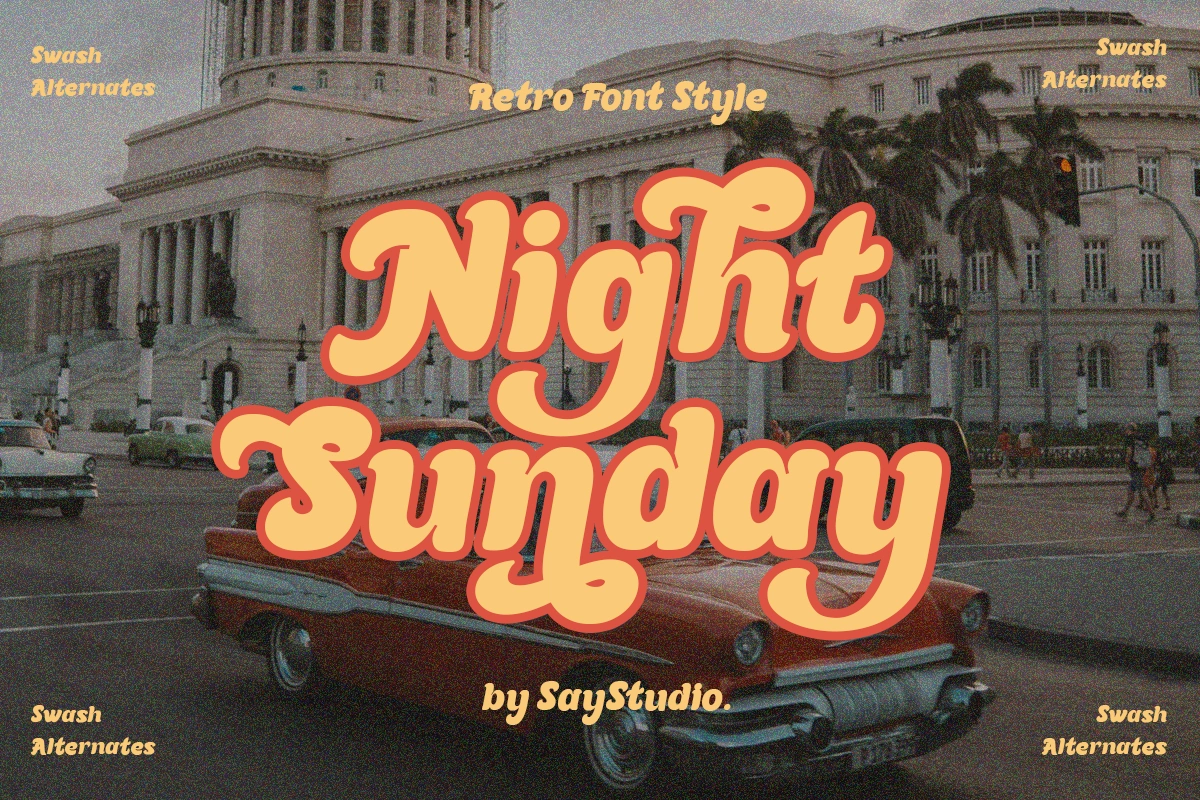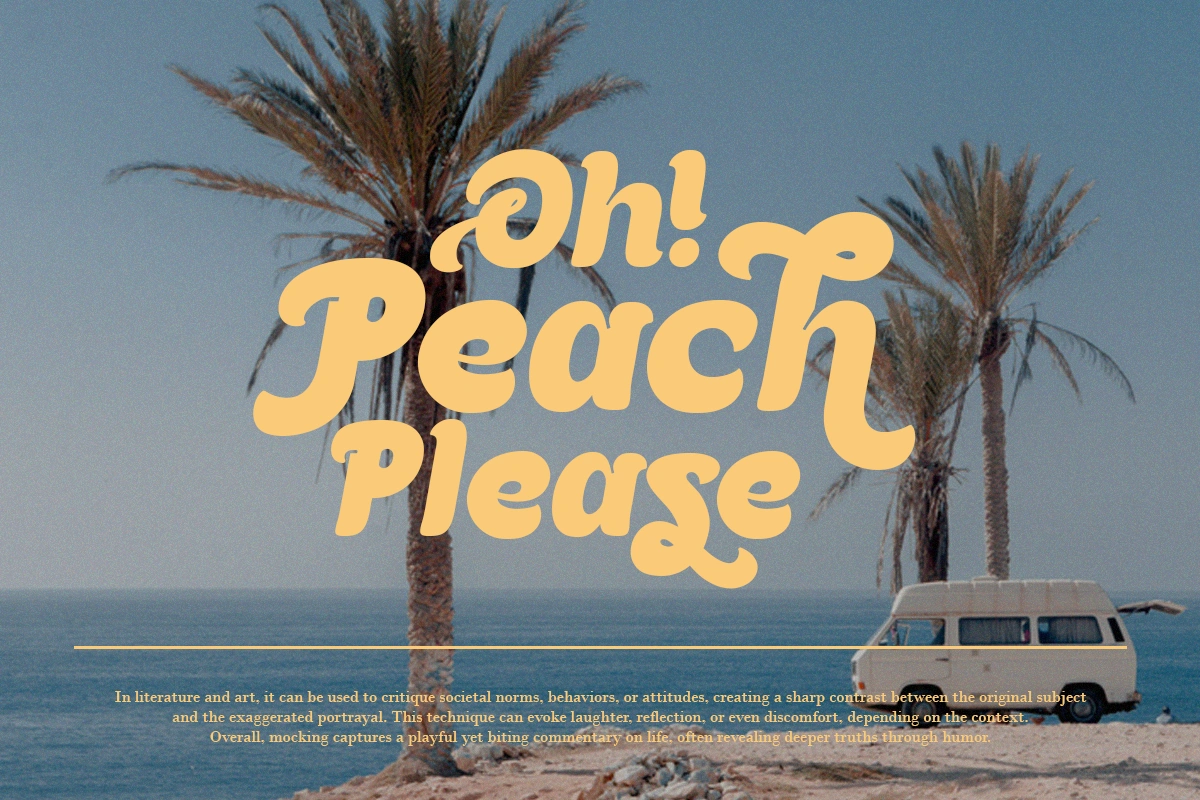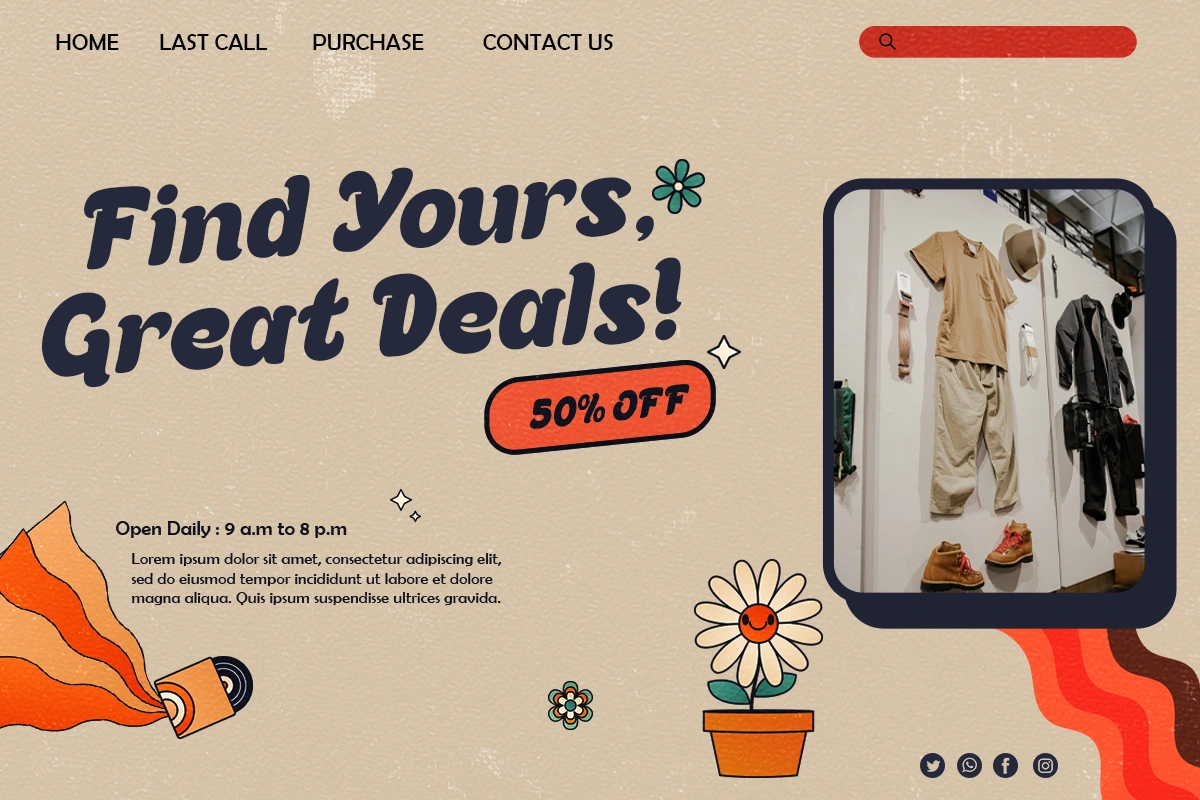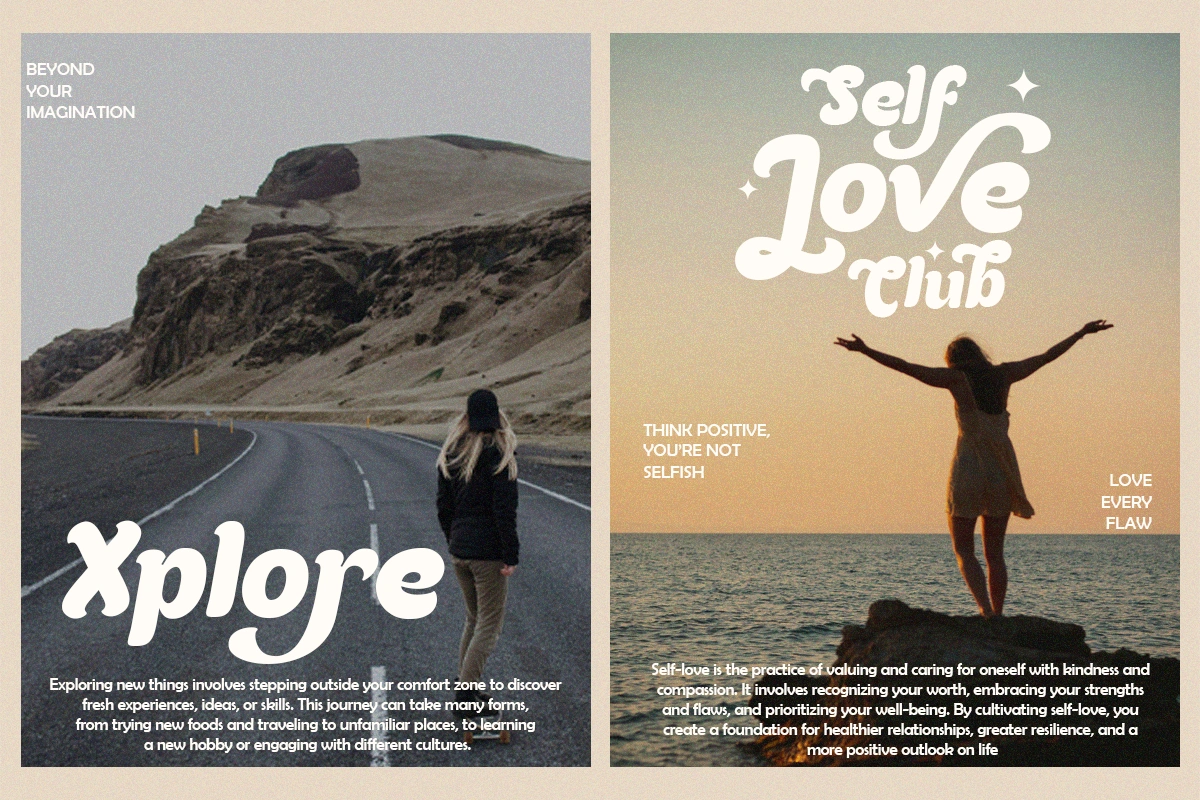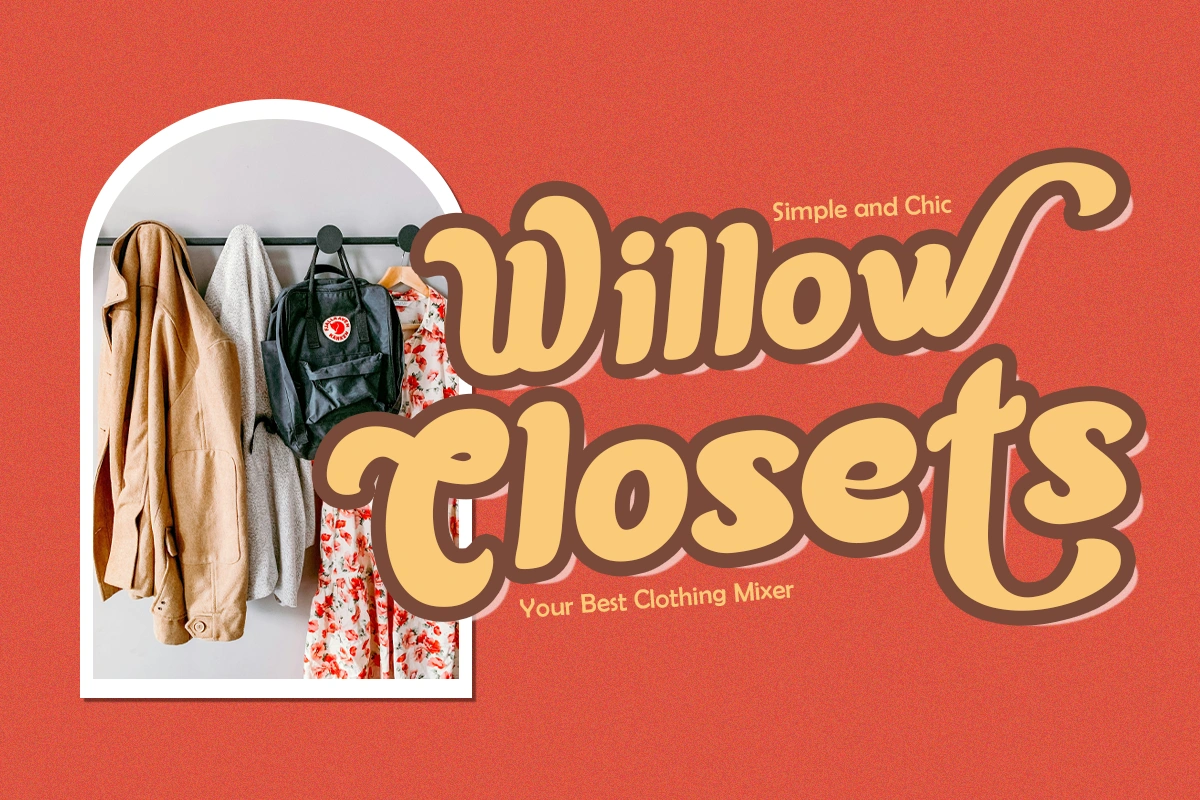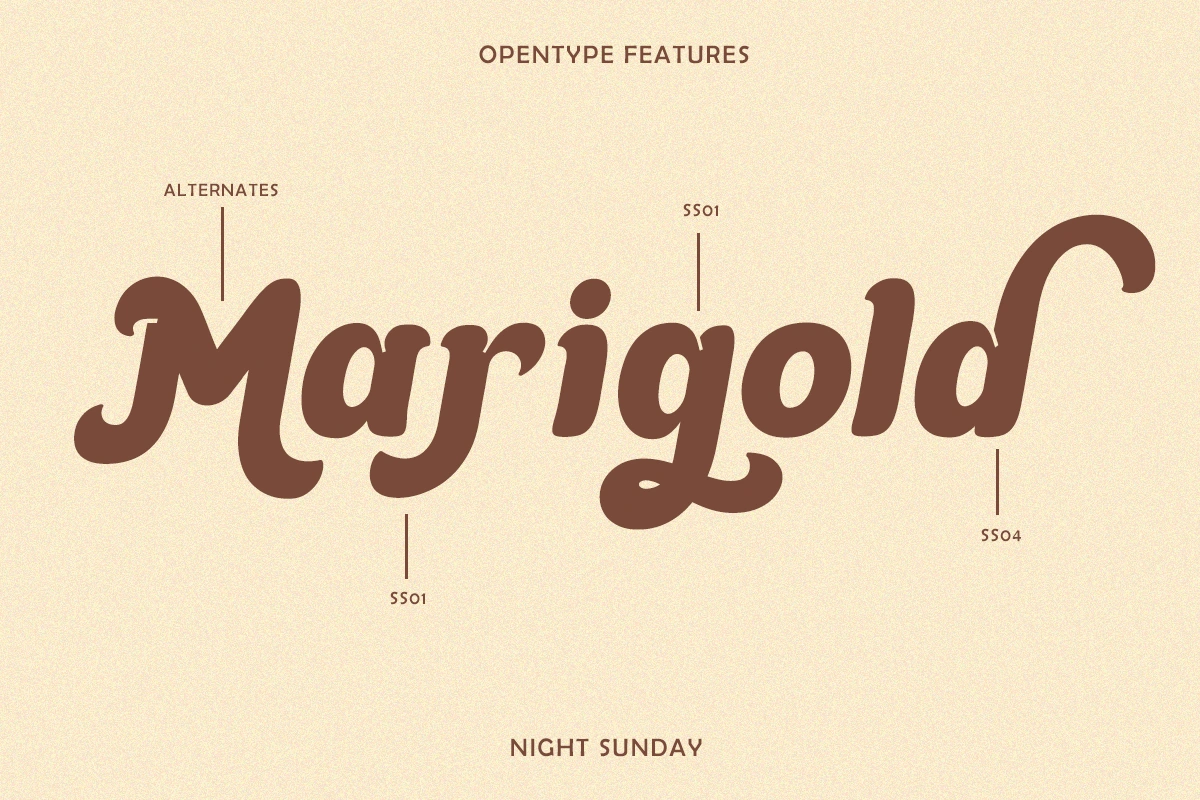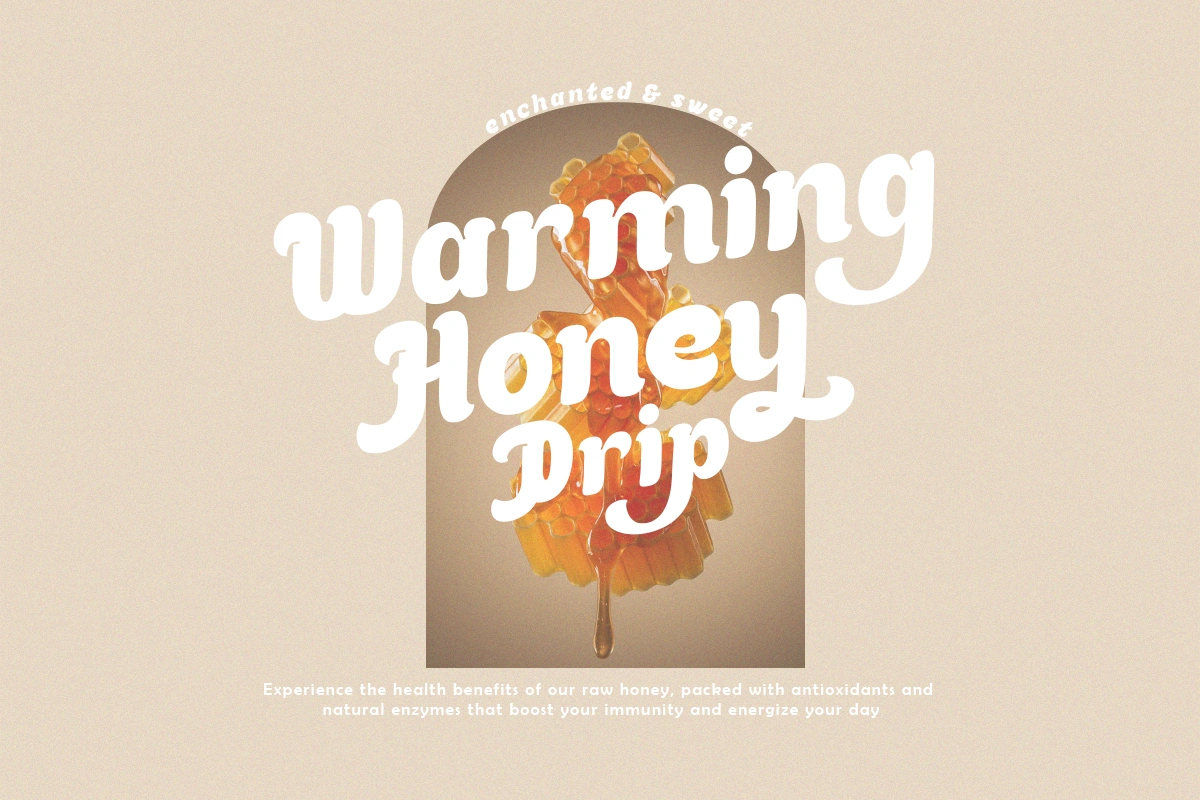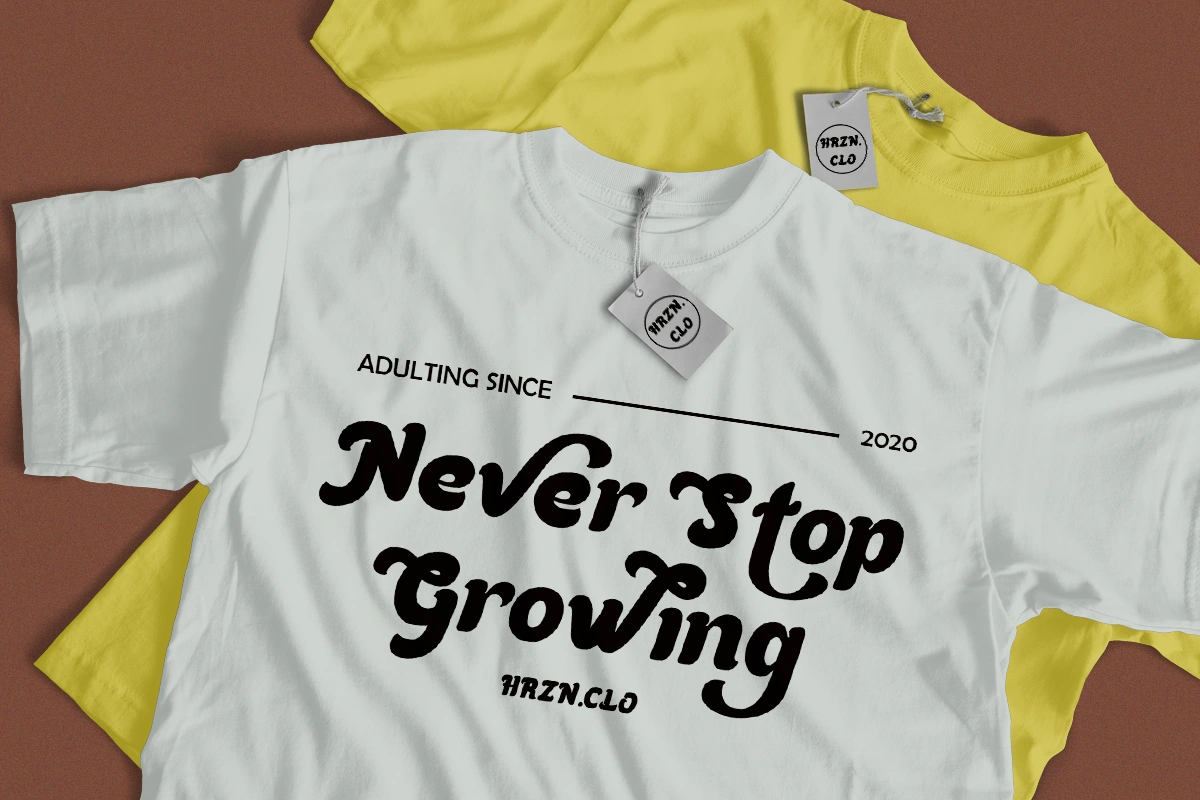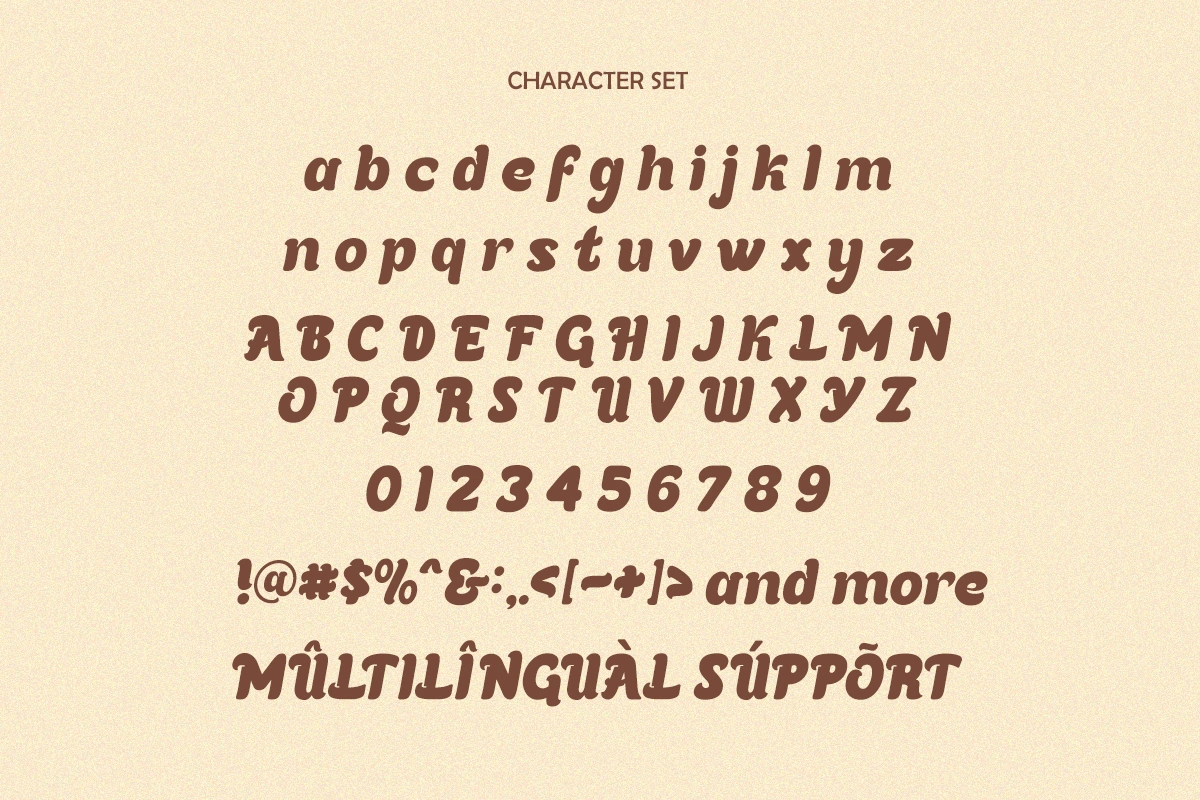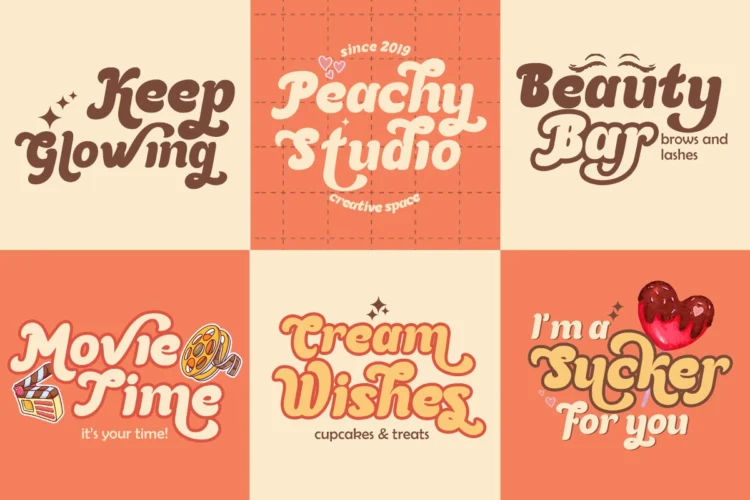
Night Sunday – Retro Font
Night Sunday is retro serif font characterized by its smooth and rounded edges. This display font adds a distinctive retro flair to any design concept. It includes a full set of characters, featuring uppercase and lowercase letters, numbers, punctuation marks, many alternates and multi-lingual support, making it versatile for various projects. Ideal for logotypes, stickers, packaging design, headlines, brand identity, the apparel industry, posters, magazines, books, YouTube, Instagram, websites, and any other creative endeavors, this font is ready to elevate your amazing designs.